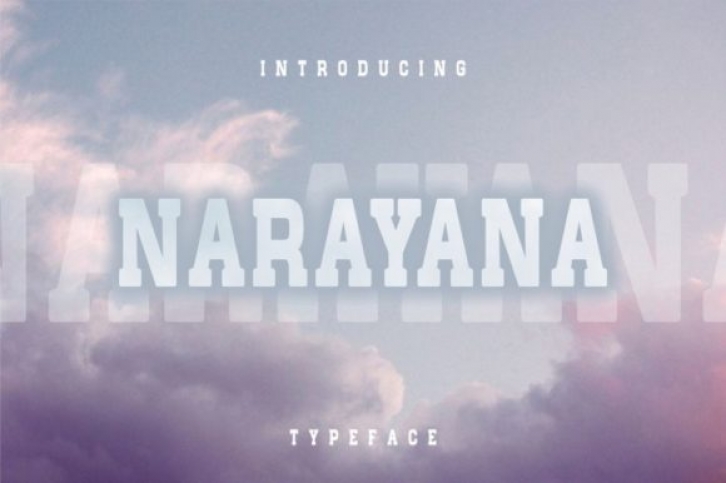
The Narayana is an unique serif font. Its bold letters have a narrow and stylish design which makes it perfect for adding a striking look to your designs.